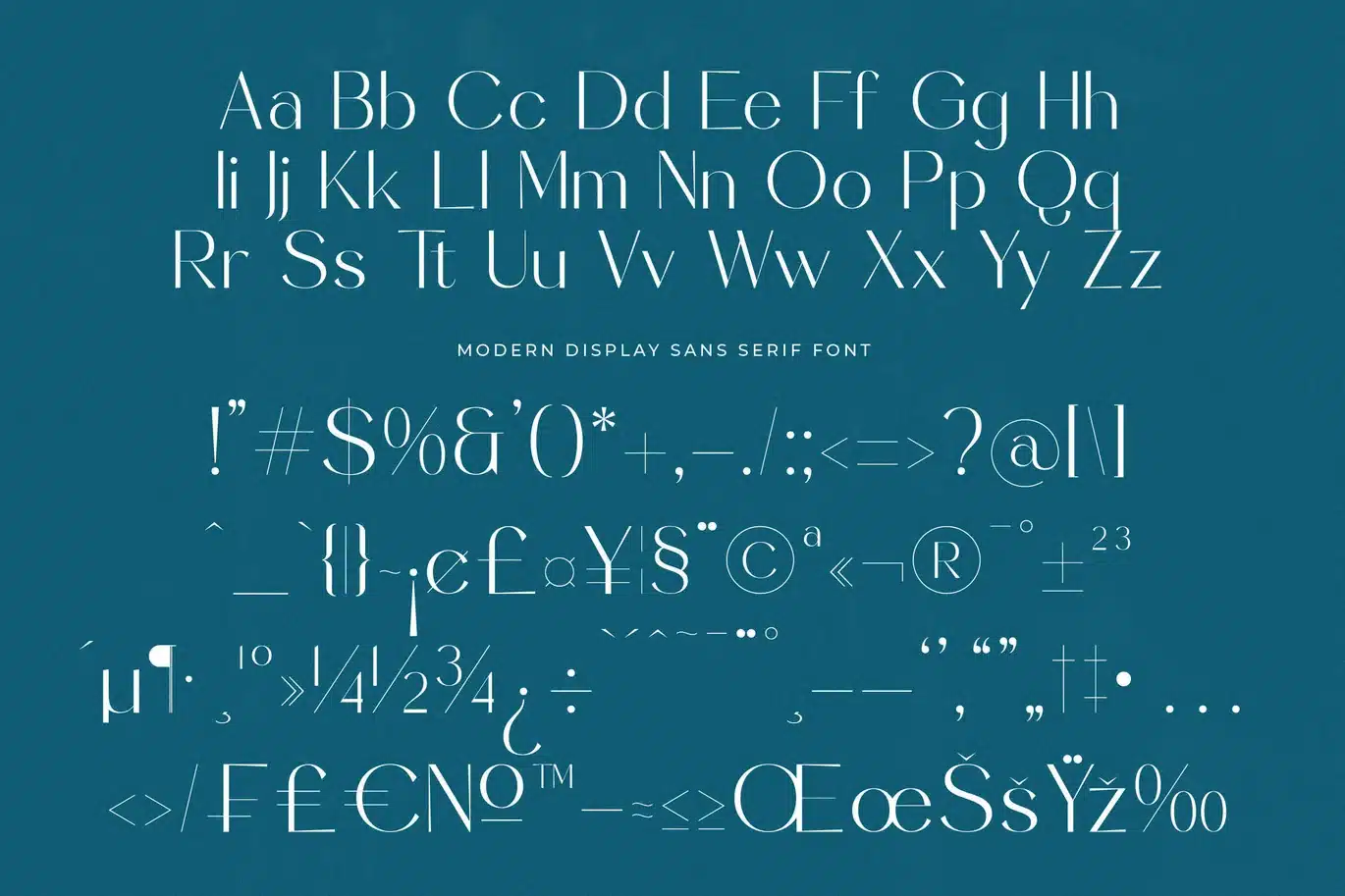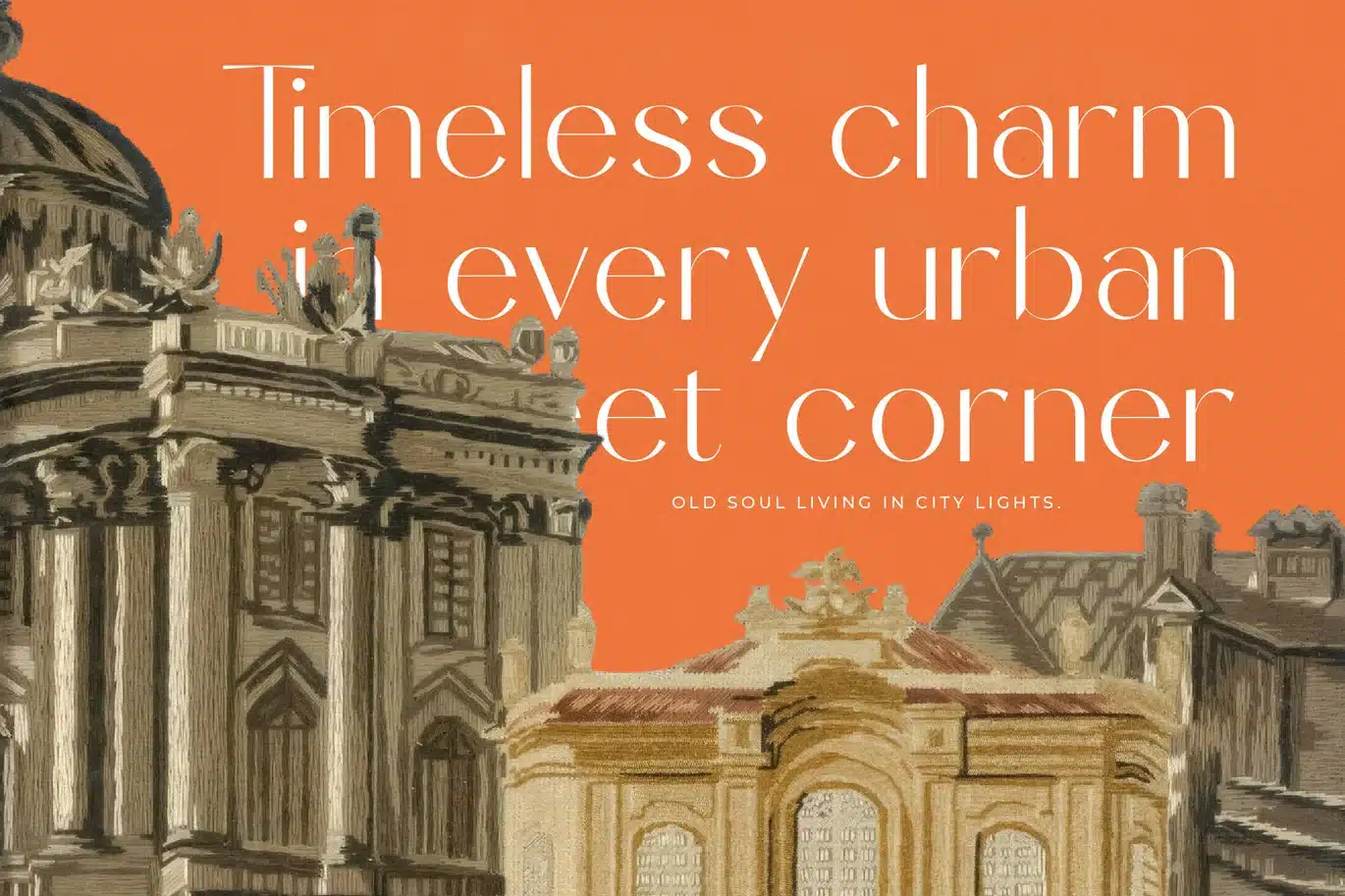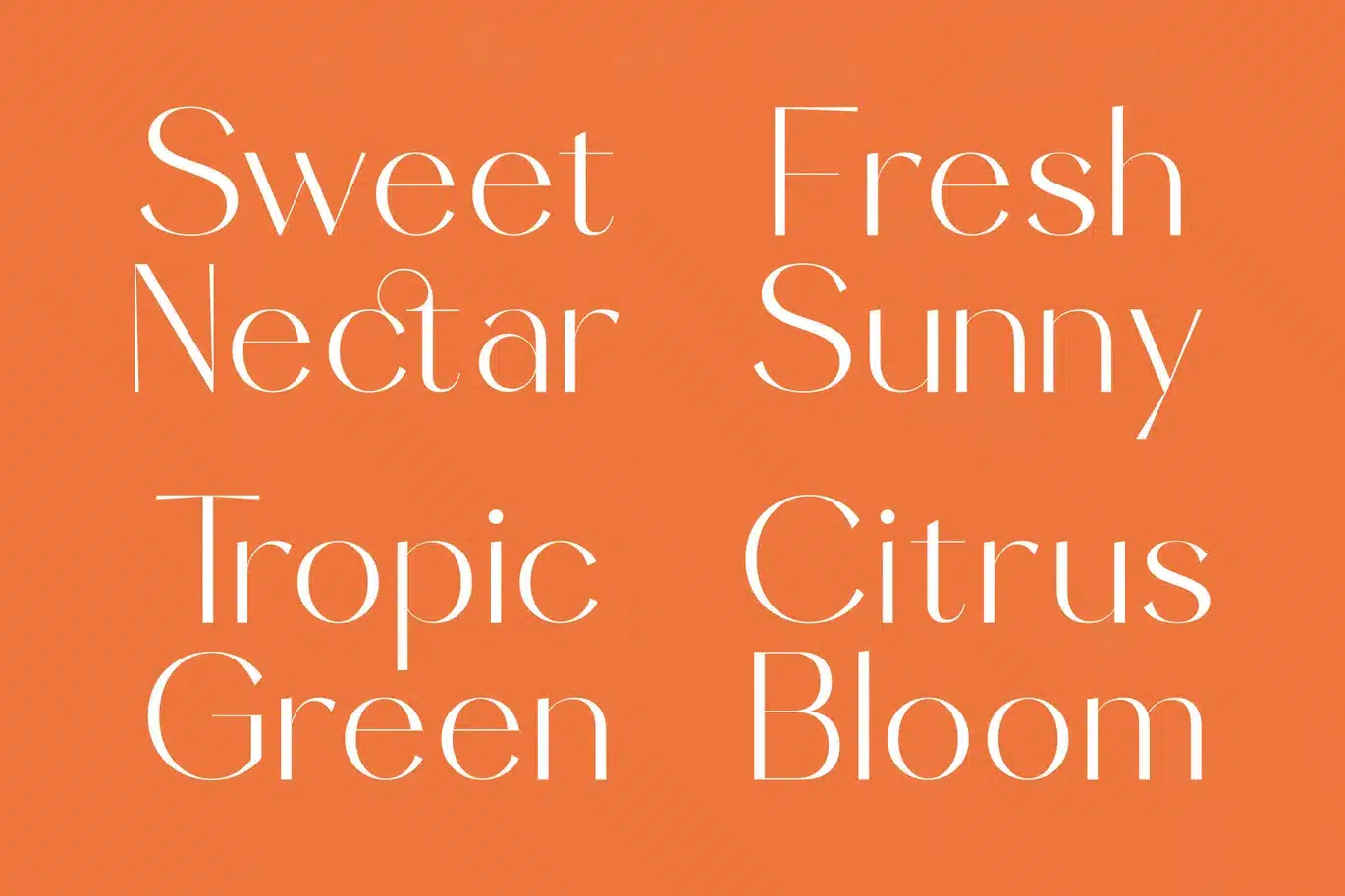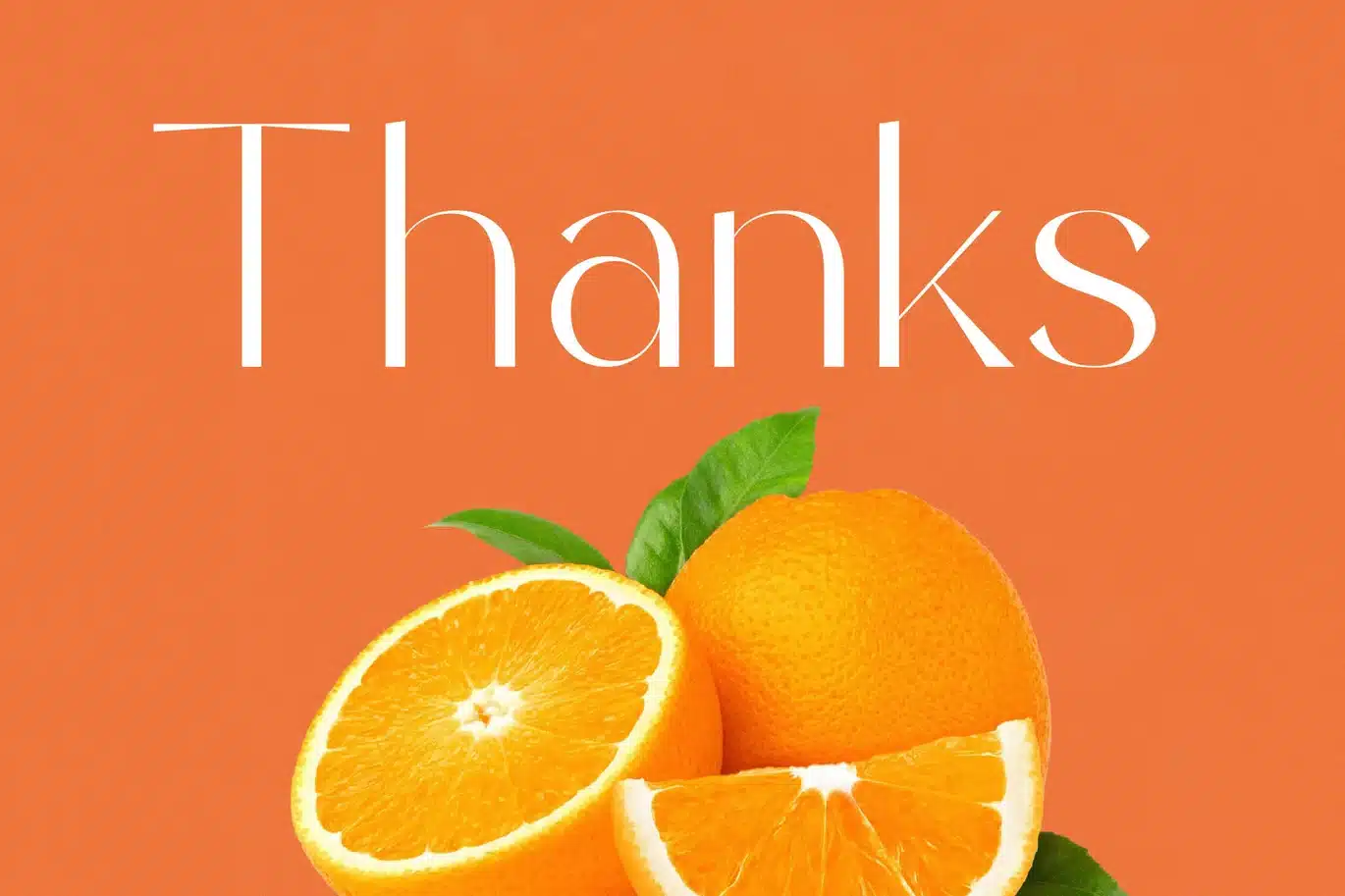
Sunveil Orange – Modern Display Sans Serif Font
Sunveil Orange is a modern display sans serif font with sleek proportions and refined curves, perfect for clean and contemporary design projects. Featuring stylish ligatures and versatile alternates, this typeface is ideal for branding, logos, packaging, posters, invitations, and editorial layouts. With its fresh and elegant character, Sunveil Orange adds a touch of sophistication and creativity to both digital and print designs.